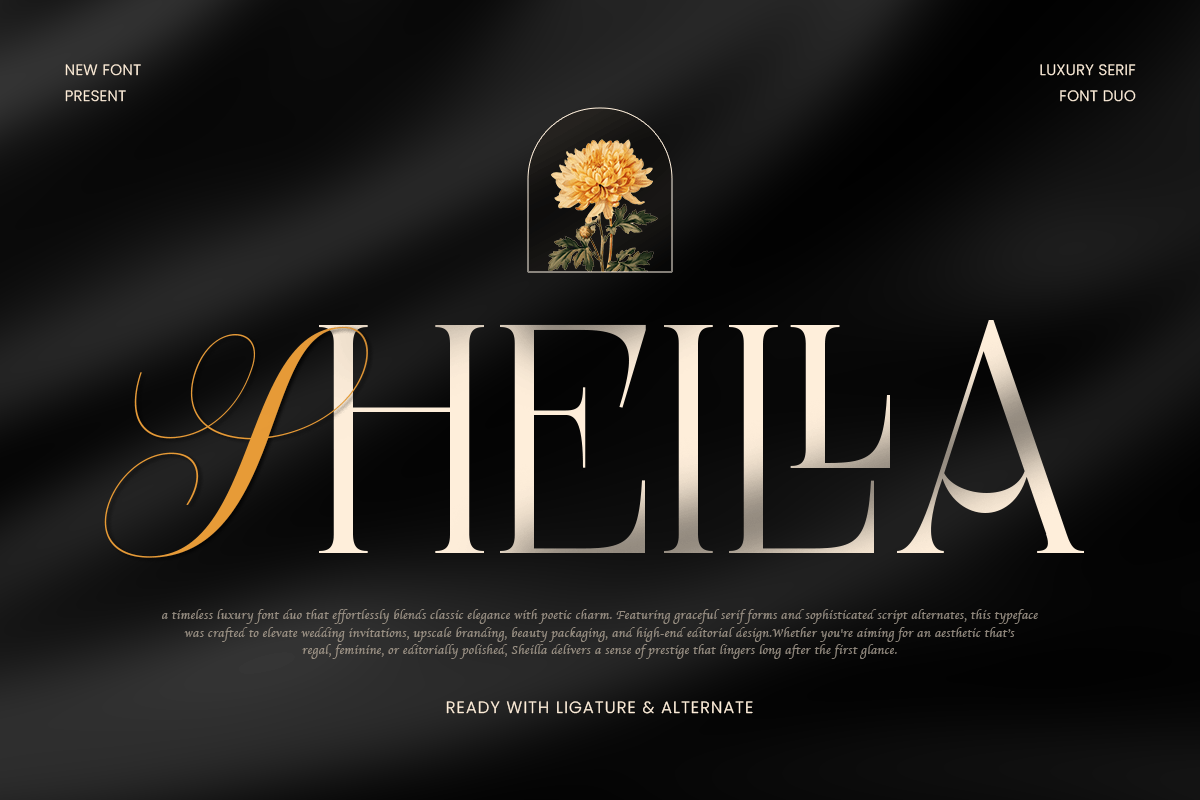
Sheilla
-Luxury Serif Font DuoSheilla - Luxury Serif Font Duo
SHEILLA is a luxury serif font duo designed to deliver a complete premium typography pairing for sophisticated branding. Combining two complementary serif styles, this duo brings refined contrast, elegant rhythm, and high-end personality—perfect for designers who want a cohesive luxury identity with versatile expression.
Built for brand-focused projects, SHEILLA performs beautifully across logos, wordmarks, editorials, magazine spreads, lookbooks, website headers, packaging, labels, invitations, and social media campaigns. Use the duo to create hierarchy and visual balance—one style for bold luxury headlines, the other for clean supporting text that keeps layouts polished and readable.
Whether you’re building a fashion label, beauty brand, premium product packaging, or an upscale wedding concept, SHEILLA provides a curated serif pairing that makes your typography feel exclusive, modern, and unmistakably elegant.
Inspiration Behind SHEILLA
SHEILLA is inspired by contemporary luxury branding and editorial typography—where refined serif structure, contrast, and hierarchy define premium communication. The design focuses on elegant proportions and a cohesive duo system to support modern high-end identities across print and digital design.
SHEILLA Font Features:
Luxury serif duo designed for premium branding and elegant layouts
Two complementary styles for strong hierarchy and consistent identity
Perfect for logos, editorials, packaging, and high-end headlines
Luxury logos, wordmarks, and premium brand identity systems
Fashion editorials, magazines, lookbooks, and headline typography
Beauty, skincare, fragrance, jewelry, and boutique branding
Premium packaging, labels, invitations, and wedding stationery
Social media campaigns, websites, ads, and marketing assets
Elevate premium branding with SHEILLA—a luxury serif font duo made for elegant, high-end design systems. ✨